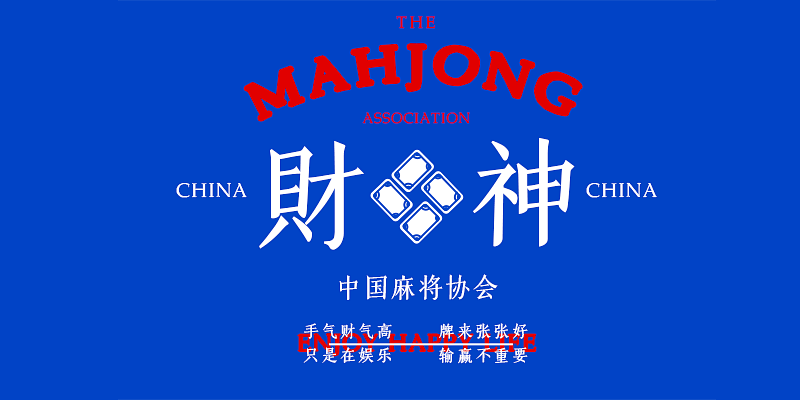
HelloFont ID Ming Ke Ben Wan Song Font Free Download is a beautifully crafted traditional Chinese typeface that blends classical Song (宋体) style with handwritten, printed-book aesthetics. Inspired by old-style Chinese publishing and literary culture, this font is perfect for editorial design, book covers, historical publications, academic materials, or any project that calls for cultural depth and typographic elegance.
The font features crisp, structured strokes with a touch of softness, mimicking the feel of carefully printed ink on aged paper. With its refined horizontal and vertical lines, HelloFont ID Ming Ke Ben Wan Song Font Free Download maintains excellent legibility while preserving the rhythm and grace of traditional text layout.
In addition to supporting traditional and simplified Chinese characters, it also includes Latin characters for bilingual designs—making it an ideal choice for international publishing, cultural institutions, and sophisticated brand identities.
Timeless, literary, and filled with character—HelloFont ID Ming Ke Ben Wan Song brings elegance and heritage to your designs, bridging the gap between tradition and modern design needs.